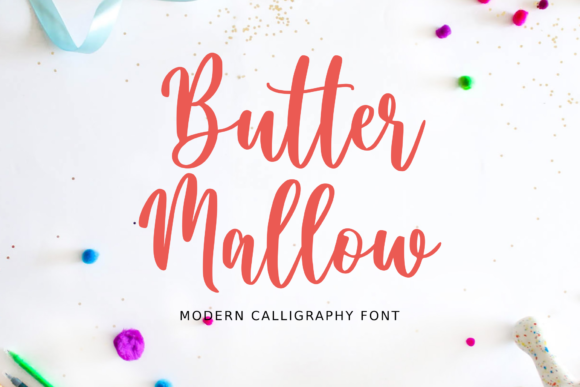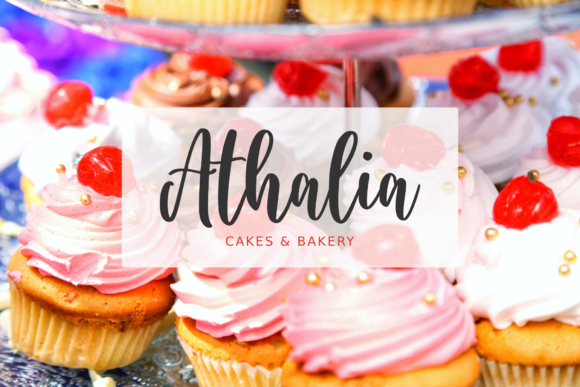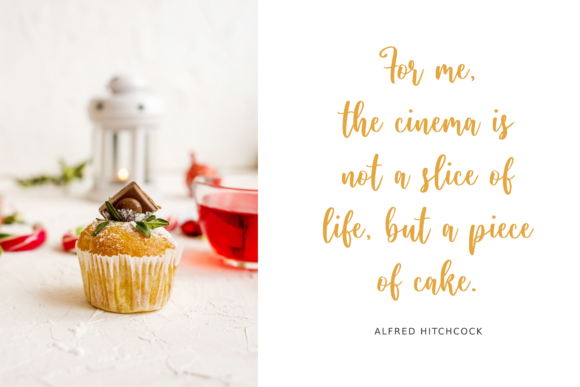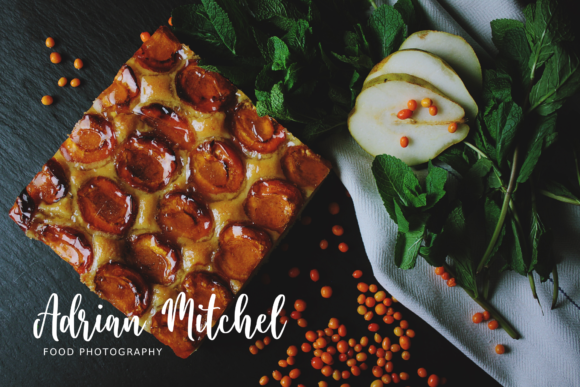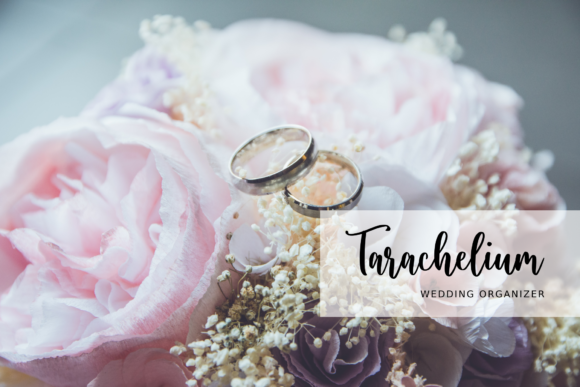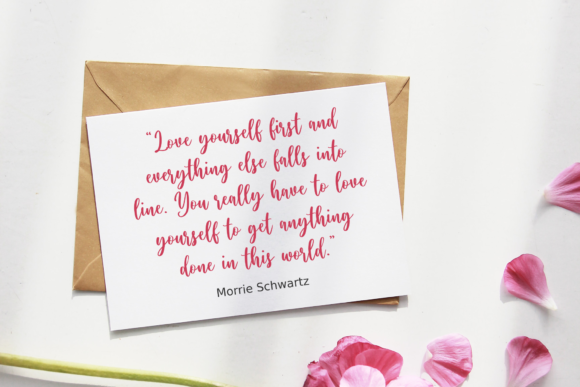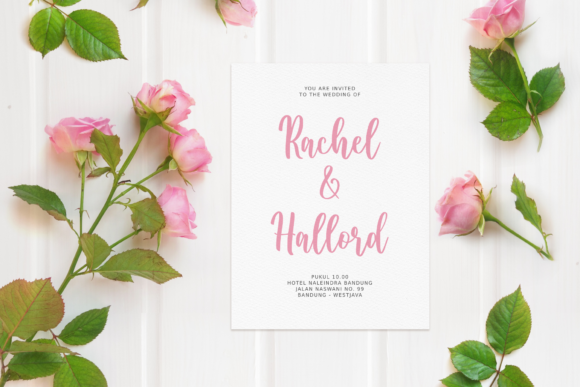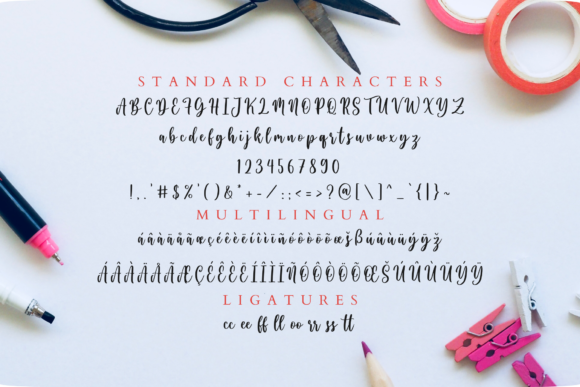
Butter Mallow Font
About Butter Mallow Font
Butter mallow is a modern handwritten font with an incredibly friendly feel. This font is the perfect fit for all of your logos, branding, social media, and crafty DIY projects.